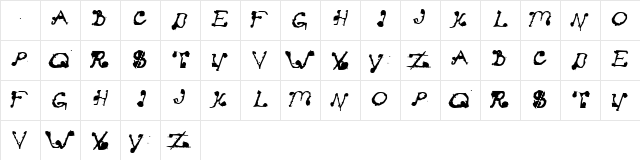
Stay Clear Regular
Design Context for Stay Clear Typeface
Stay Clear is a composed and adaptable typeface that performs quietly and consistently across a wide range of design contexts.